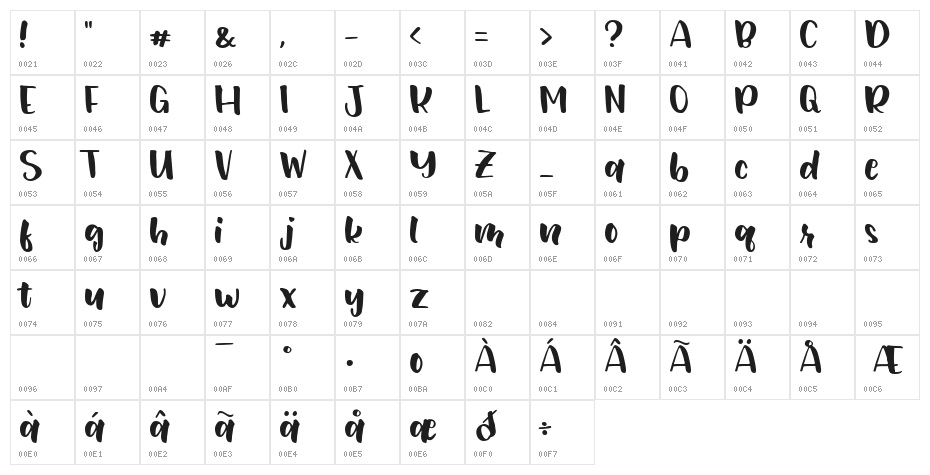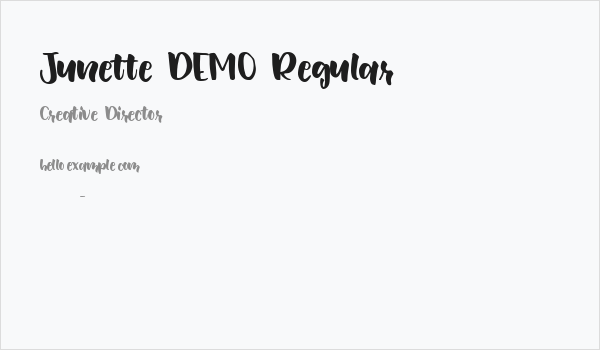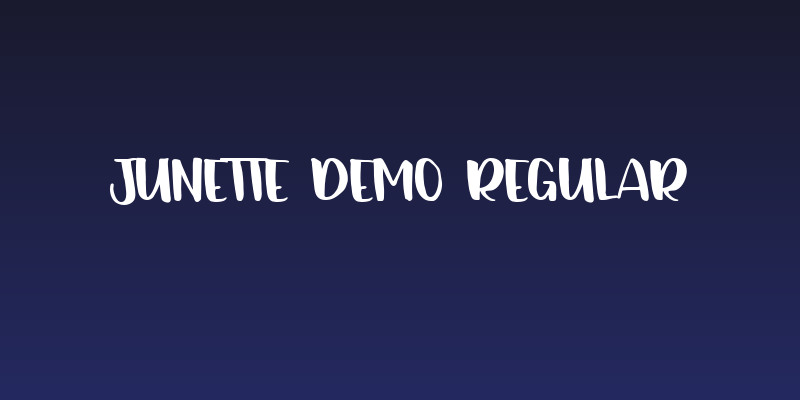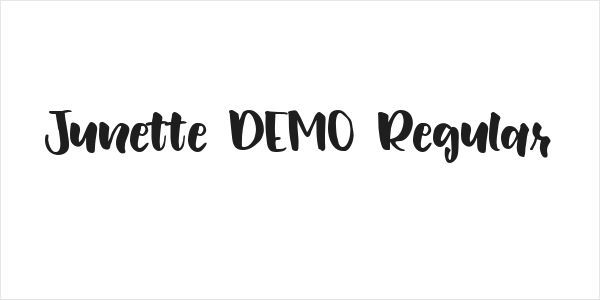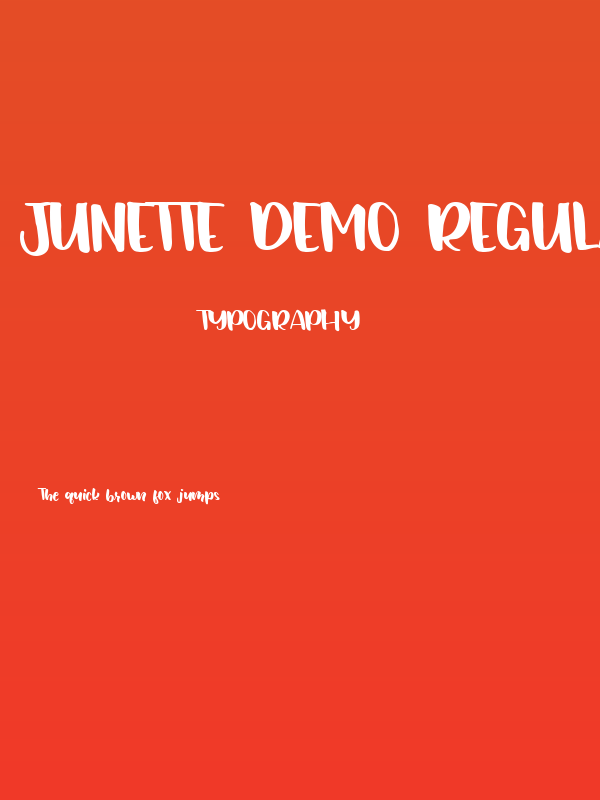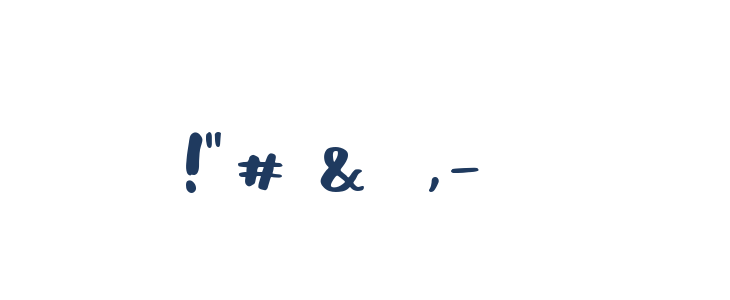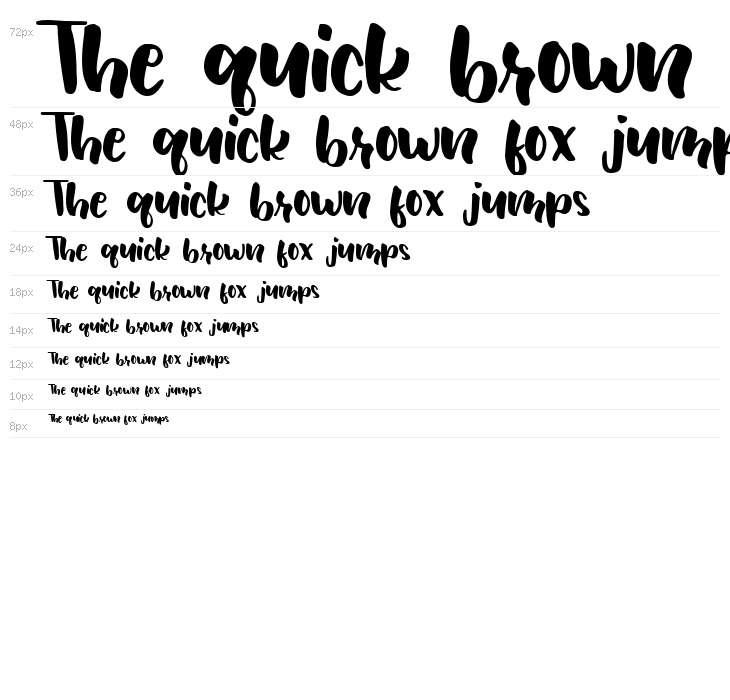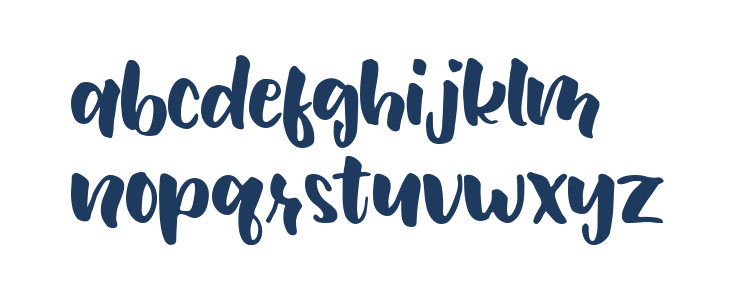
Junette DEMO Regular Font
Junette DEMO Regular Description
This font features a bold, playful style with a handwritten feel. The characters are thick and rounded, giving a sense of warmth and approachability. The uppercase and lowercase letters maintain a consistent flow, with some letters featuring unique, whimsical curves that add character. The numbers and special characters are equally bold, ensuring they stand out. This font's design is perfect for projects that require a friendly and inviting aesthetic.
| Proposed Projects | Ideal for greeting cards, children's books, playful branding, and social media graphics. |